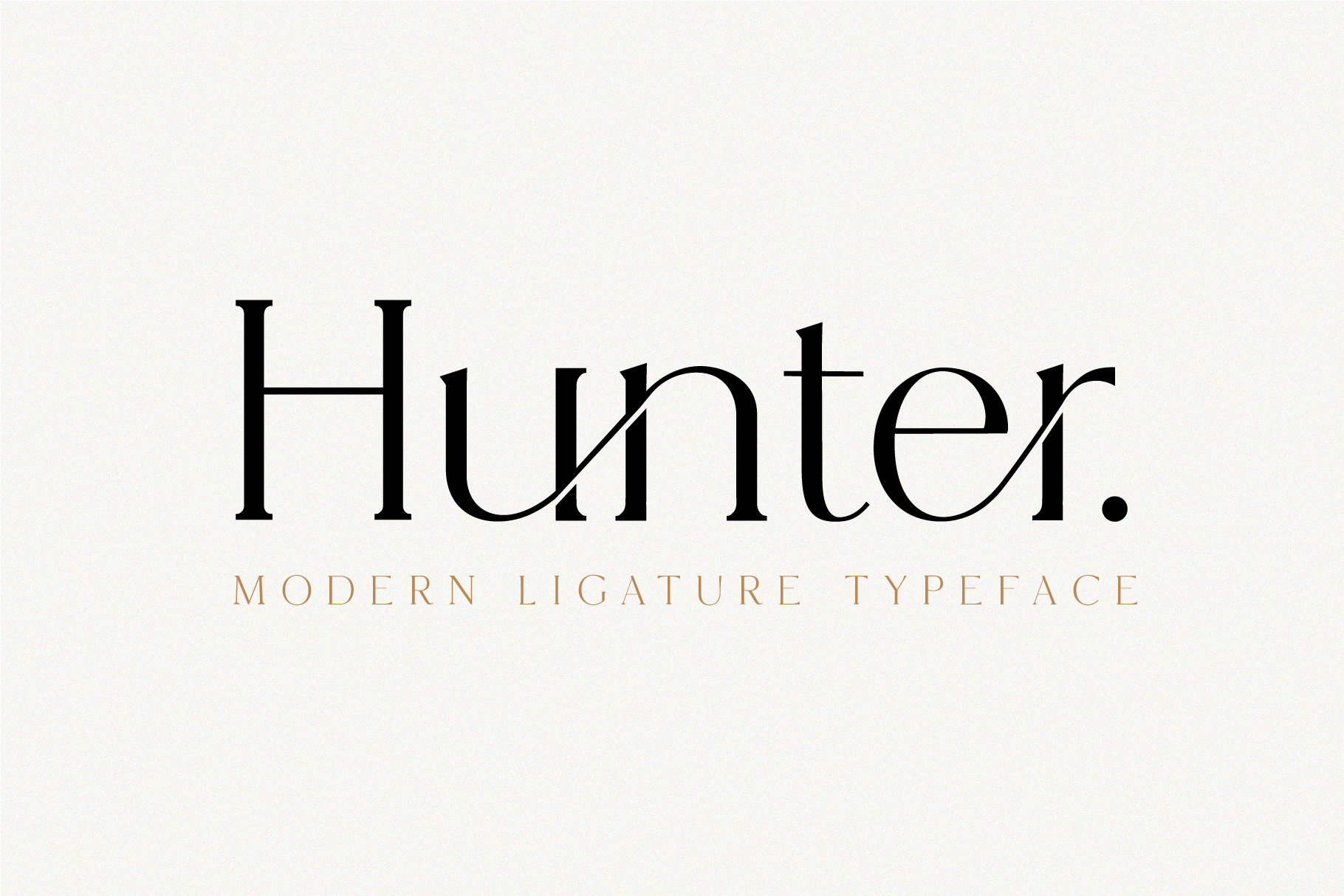
Hunter - Serif Ligature Font
Hunter is an elegant, unique font that uses ligatures to smoothly link letters. Perfect for adding a unique twist to word-mark logos, monograms or pull quotes. Hunter has 20 ligatures as well as numbers and punctuation making it super versatile. Ligatures are able to be turned off if needed for body copy. Plus, i have thrown in 4 bonus editable logos! Any Questions? Just ask!
Beautifull font, but i dosn't work in different languages. The dutch has not the same freuent letters, so it doesn't work with my words 🙈
Beautiful font, however the preview on creative market is not accurate. The letters do not link with the letters 'en' in Canva as they did in the preview. This font does not serve my needs as a result unless there is a fix to this. Can you kindly help?